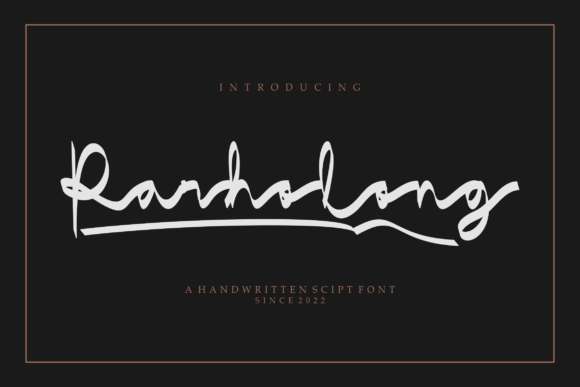
Unleash your creativity with the captivating Parholong Font, a stunning handwritten masterpiece that will elevate your designs to new heights of elegance. This exquisite script font exudes both sophistication and playfulness, making it the perfect choice for a wide range of projects.
Immerse yourself in its graceful curves and flowing lines that mimic the beauty of natural handwriting. Parholong Font will add an irresistible touch of warmth and authenticity to your branding, packaging, invitations, and social media graphics. Its versatility extends to both formal and casual settings, ensuring that it will complement any aesthetic.